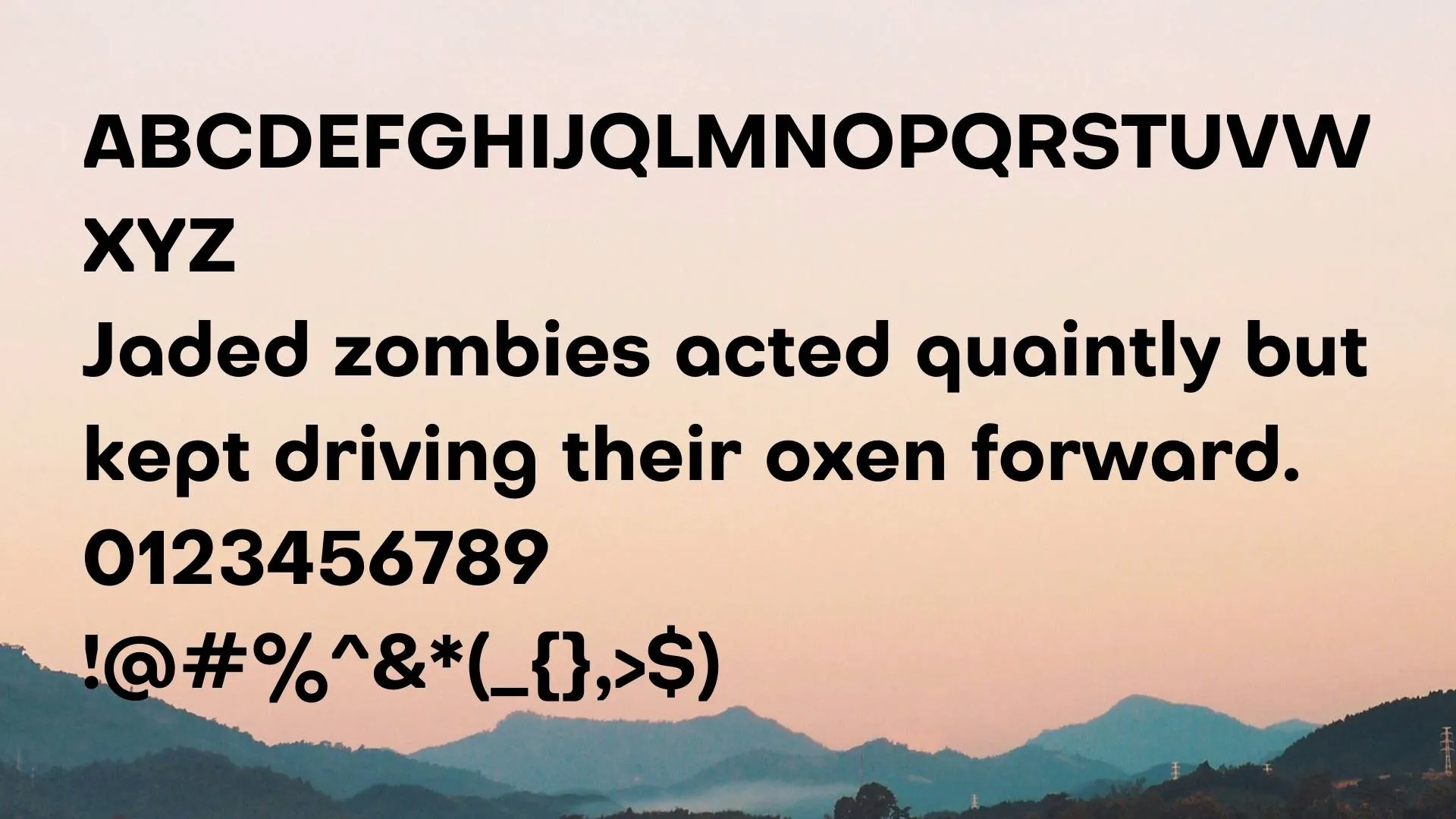
Octarine Font is designed by a famous designer named “
Octarine is a modern common typeface design that comes in 4 different for example Octarine Bold, Octarine Bold Oblique, Octarine Light, Octarine Light Oblique its also provide uppercase, lowercase, glyphs, and characters. It has 358 characters per font.
Octarine Font Info
| Name | Octarine Font |
| Designer | Alex Slobzheninov |
| Style | sans-serif |
- Octarine Bold
- Octarine Bold Oblique
- Octarine Light
- Octarine Light Oblique